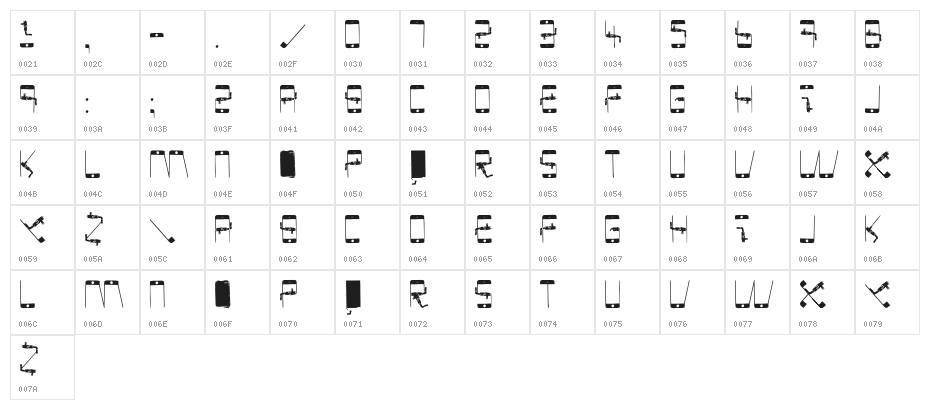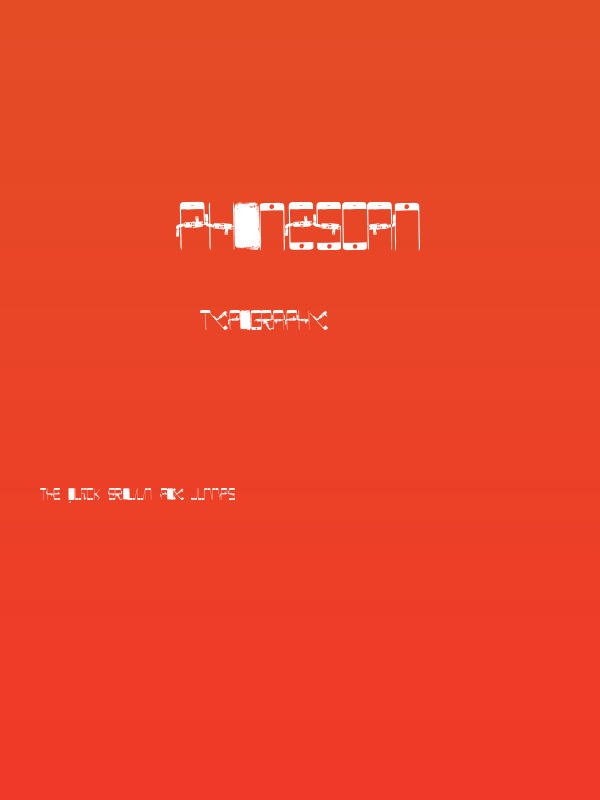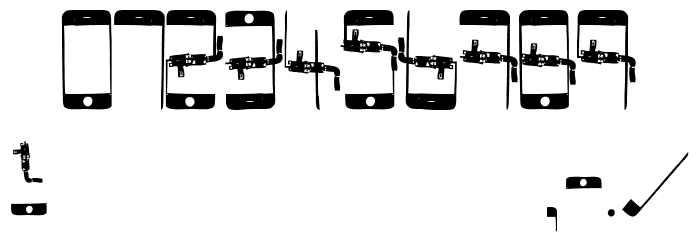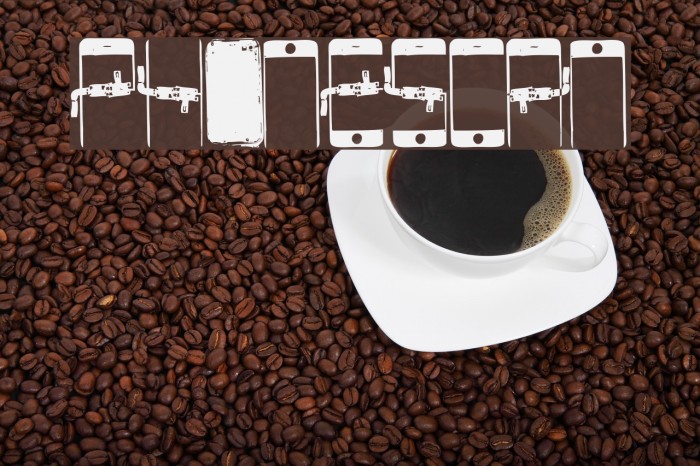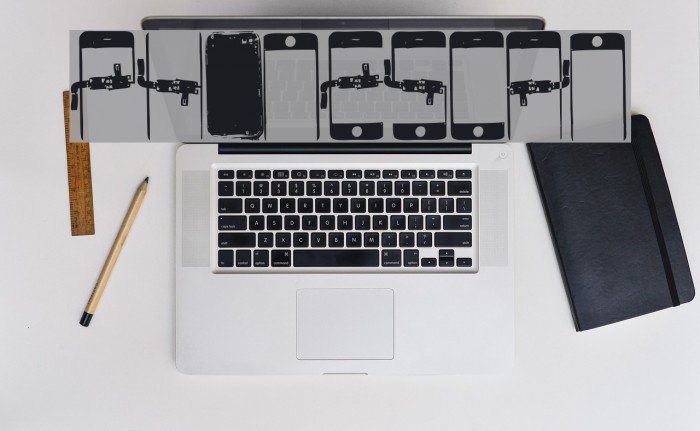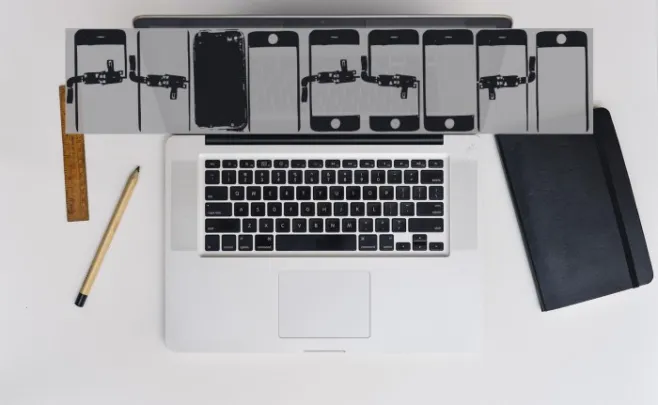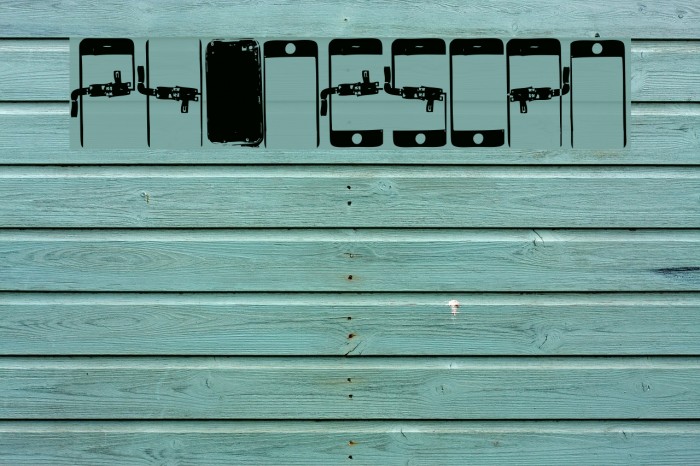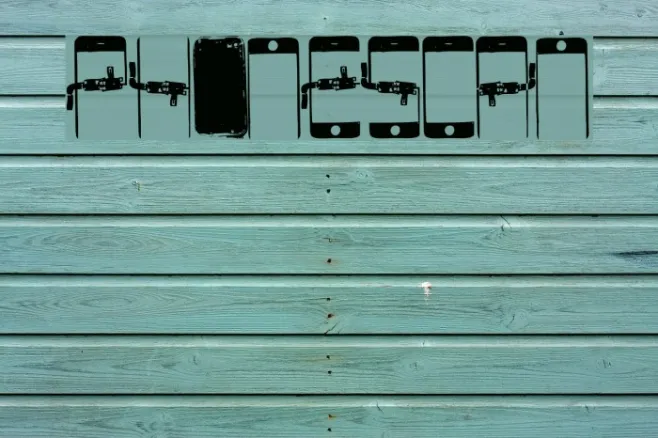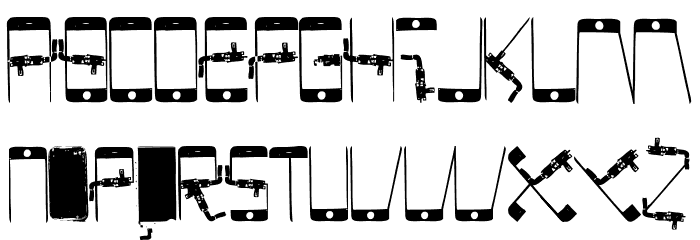
PHONESCAN Font
PHONESCAN Description
This font is a creative and modern design that incorporates elements of smartphone imagery into each character. The letters are constructed using outlines and silhouettes of mobile phones, with intricate details like buttons and screens integrated into the design. This unique approach gives the font a technological and futuristic feel, making it stand out as a decorative and thematic choice. The characters maintain a consistent structure, with each letter and number clearly identifiable despite the unconventional design elements. The font is particularly suited for projects that aim to convey a sense of innovation, technology, or digital culture.
| Use Case | Logos, Headlines, Digital Media |
| Proposed Projects | Ideal for tech-related branding, digital media projects, app logos, and innovative advertising campaigns. |